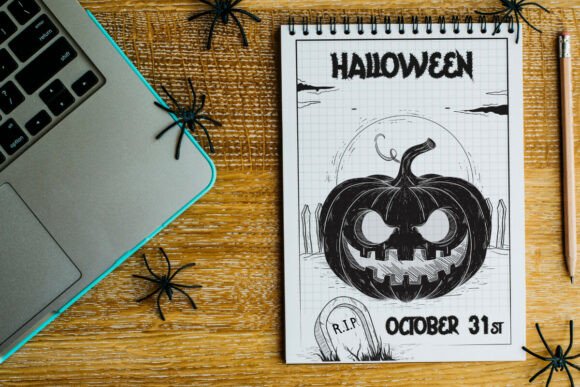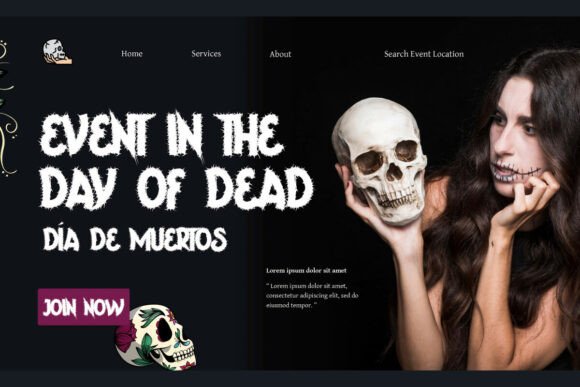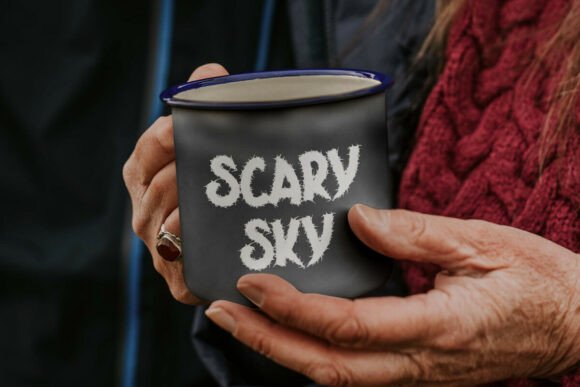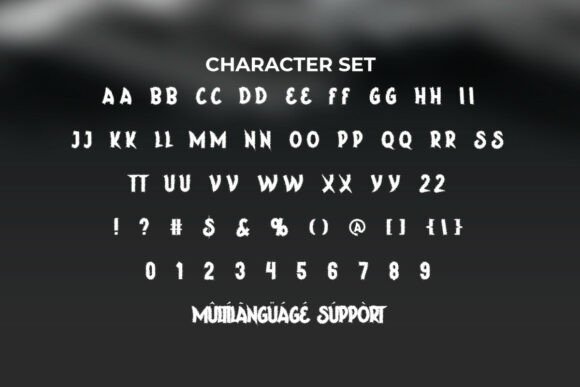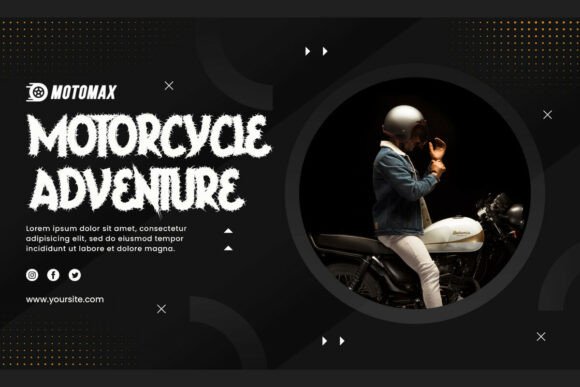
Scary Sky Font Font – Free Download
Introduction to Scary Sky Font Font
Fonts play a crucial role in design, and the Scary Sky Font font is a typeface that brings both character and versatility to any project. Whether you’re working on a branding project, a website, or a print design, the Scary Sky Font font offers a unique style that can elevate your work.
| 📌 Font Name | Scary Sky Font |
| 👤 Author | RaisProject |
Scary Sky Font is a black metal display font with a creepy look.
It will be good for any designs, such as advertisement, brand image, cover, custom design, invitation, label, marketing material, menu, poster, product packaging, quotes, signage, website, and more Scary Sky Display Font includes a full set of ALL CAPS for Uppercase and Lowercase Letters, Numerals, and large range of Punctuation.
Key Features of Scary Sky Font Font
Why Choose Scary Sky Font Font?
The Scary Sky Font font is more than just a typeface – it’s a design tool that helps you communicate your message with style and clarity. Its unique character set and versatile design make it suitable for a wide range of applications, from elegant invitations to bold headlines.
With its carefully crafted letterforms and balanced proportions, the Scary Sky Font font ensures readability and visual appeal across all mediums.
What makes Scary Sky Font font special?
The Scary Sky Font font stands out with its unique design, exceptional readability, and versatility across various design applications.